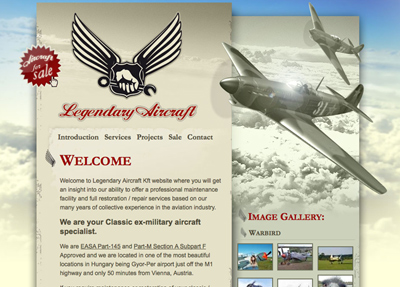
Most of us have no business on the Legendary Aircraft site. The only airplanes we’ve repaired or restored were made of balsa wood or maybe styrofoam (if we were lucky). But the design of the Legendary Aircraft site is an instant reminder of just how much fun airplanes are and how amazing it would be to own one of these classic ex-military aircraft.
Designed by the Hungarian team Bitbox, it’s clear that a lot of time was spent understanding the audience and subject matter. The bold logo, strong use of photography, and period-appropriate design motif no doubt appeal to the owners and enthusiasts of these planes. From an information architecture standpoint, the site is easy to digest and to-the-point, providing just enough information to get a customer on the phone or in the door.
One of the key words when analyzing this design is “appropriate.” Too often we see what appears to be a case of a designer pushing his or her style onto a client. Or worse even, using a certain design aesthetic simply because it’s trendy. In the case of Legendary Aircraft, every aspect of the design helps to communicate their message and position them as the classic ex-military aircraft specialists.
Detail photo of planes on the home page
Take the photography, which in terms of hierarchy is easily number one. Not only is it beautiful and engaging, it adds to the site’s understanding. Quicker than you could spell the word “airplane,” the visitor already knows that this site has something to do with older military airplanes. And for those seeking out this site with prior knowledge of the company, it just adds to their credibility.
To keep things interesting and to show a broader range of airplane models, there are different photos for each of the main sections. No flash or javascript here, just a different photo for each page. Each plane has been cut out, given the same sepia tone treatment for consistency, and overlapped in a way that gives depth to the page and activates the negative space.
The logo also works hard to explain what this company is all about. In fact, it doesn’t get much more representative than this: wings and a fist with a wrench. The red script logotype is a nice change from the bold black forms within the logomark, and is reminiscent of hand-painted names that you might see on a classic airplane.
The red color of the logomark is used in headings throughout the site which creates a great rhythm and helps bring your eye down through the content. Navigation and body copy has been set in a sepia brown tying in with the photography while still providing enough contrast for readability. The blue sky at the top fades softly into a creamy tan that makes up the majority of the sites background color.
Seeing as this site is being reviewed on Typesites, it’s a bit ironic that the first mention of typography aside from the logotype is underneath the “Criticisms” section. But when I first saw a screenshot of the Legendary Aircraft site, the headings were set in a different typeface. In the screenshot I could make out a sharply angled san-serif “W” on the “Welcome” heading, however when I viewed the site it was set in a serif font.
Comparison between Garamond and Arial
A peek at the CSS reveals that Garamond is specified first, and users without this old style serif get Trebuchet, then Helvetica, then Verdana, then Arial. The problem is that there’s a huge difference between Garamond and Trebuchet. While Garamond clashes with the logotype, Trebuchet’s clean lines with just a bit of variation in thickness are complimentary and more fitting with the 1920’s-1930’s time period.
A better choice would be to select a similar humanist sans-serif as the primary typeface and leave Trebuchet as second in line. Gill Sans, for example, has many similar characteristics to Trebuchet, and it comes installed on OSX.
Unfortunately, font choice is not the only type issue on this site. Spacing in the navigation is off; no matter which font displays, the Contact link pushes into the right edge of the page. And while the small caps treatment works great on the headings set in red, it gets overused quickly. The sub headings beneath “Image Gallery” in the right column, for example, would be much better suited in lowercase italics or possibly reversed on some airplane-related graphic.
Other criticisms of the site lie in some of the small details. The “Aircraft for sale” seal works to call attention to this area of the site, but the bubbly web 2.0 shine feels out of place. Not to mention the type has been awkwardly distorted and squished in there.
conclusion
The Legendary Aircraft site is beautiful. From it’s great use of photography to the simple and well structured content it’s a fun site to use. Best of all, everything is appropriate and there for a reason.
Engaging plane photos help add to the understanding of the site and their execution couldn’t be better. Color has been used to bring the eye through the content and create a soft and airy experience. Typography, however, leaves some room for improvement. Addressing the issues mentioned above would be a great start, but it just feels like within this beautiful shell it’s missing that attention to detail.